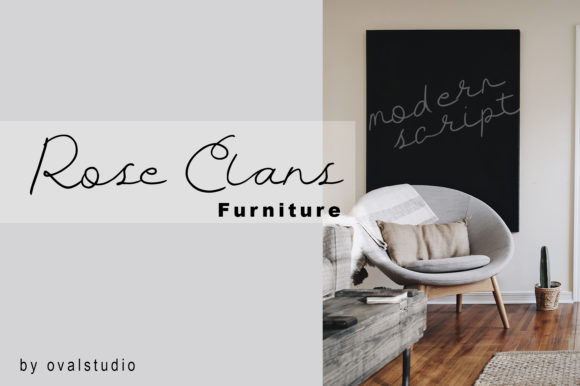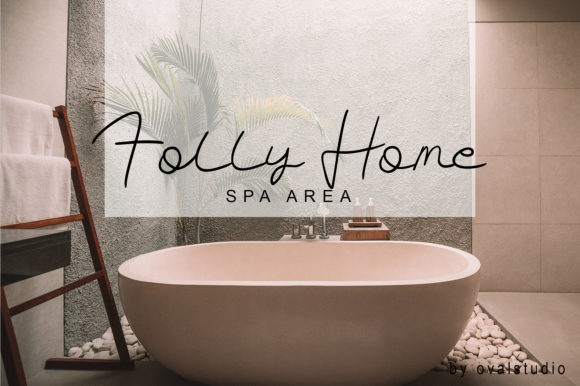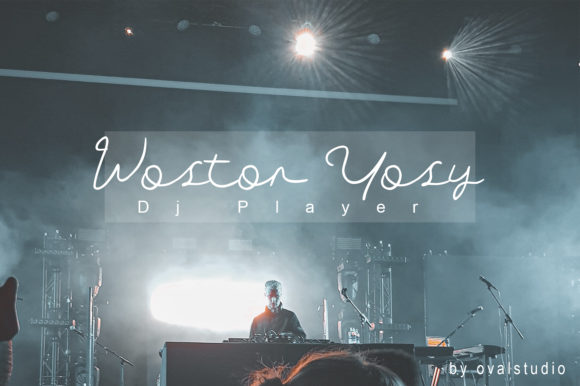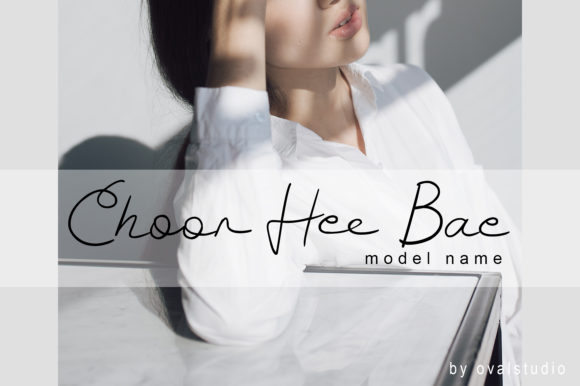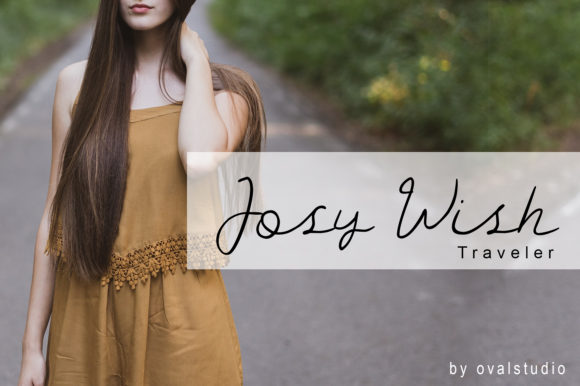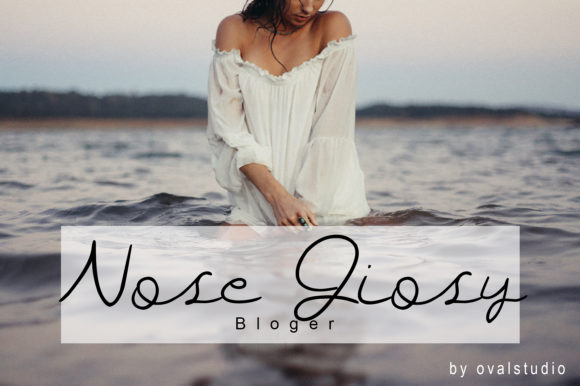
Introduction to Miasan Font
As a designer, there’s nothing quite like the thrill of a creative project coming together. You’re sifting through a sea of design resources, searching for that perfect element to tie everything together. And then, you stumble upon it – the one that makes your heart skip a beat. For me, that moment came when I discovered the Miasan Font.
This high-quality, minimal handwritten font is a game-changer. Its incredibly versatile style makes it perfect for a wide range of creative projects, from elegant invitations to playful social media graphics. With a transparent background, the Miasan Font is a breeze to work with, and its free download makes it an accessible design resource for designers of all levels.
Whether you’re a seasoned pro or just starting out, the Miasan Font is a valuable addition to any designer’s toolkit. Its unique charm and effortless style make it a standout choice for designers looking to add a personal touch to their work.
Key Features of Miasan Font
- High-quality typography for creative projects, ideal for designers and artists.
- Unique characteristics: modern, clean design with a touch of elegance, making it perfect for a variety of creative projects.
Honest Review: Miasan Font
I recently came across the Miasan Font, and I was excited to dive in and see what it had to offer for my next creative project. I was impressed by the high quality and unique design of this font.
One of the standout features of the Miasan Font is its transparent background, which makes it a versatile design resource for any project. This is especially useful for designers who want to create a clean and modern aesthetic.
Here are some of the things that work well with the Miasan Font:
- Unique and creative design
- High quality and crisp typography
- Transparent background for added flexibility
- Limited character set, which may not be ideal for longer text
- No bold or italic versions, which can be a drawback for some designers
Overall, I think the Miasan Font is a great addition to any designer’s toolkit. It’s a free download, which is a definite plus, and it’s perfect for small-scale projects or those who want to add a touch of creativity to their designs.
Tips for Getting the Most Out of Miasan Font
To get the most out of the Miasan Font, experiment with different font sizes, colors, and combinations. This will help you unlock its full potential as a design resource.
The Miasan Font is commonly used in various design projects, including logos, brochures, and social media graphics. Its versatility and high-quality design make it a popular choice among designers.
Alternatives to Miasan Font
Open Sans is a high-quality, open-source sans-serif font that is ideal for creative projects requiring a clean and modern look. It features a transparent background and is highly customizable, making it a popular choice among designers. Open Sans is available for free download and is an excellent alternative to Miasan Font for web and print designs.
Comparison to Miasan Font: Open Sans has a more modern and sleek appearance, while Miasan Font has a more elegant and sophisticated feel. Open Sans is more versatile and suitable for a wide range of creative projects, whereas Miasan Font is more suited for high-end designs.
Lato is a high-quality, sans-serif font that is perfect for creative projects requiring a clean and elegant look. It features a transparent background and is highly customizable, making it an excellent choice for designers. Lato is available for free download and is a great alternative to Miasan Font for web and print designs.
Comparison to Miasan Font: Lato has a more modern and sophisticated appearance, while Miasan Font has a more traditional and elegant feel. Lato is more suitable for creative projects requiring a clean and minimalistic look, whereas Miasan Font is more suited for high-end designs with a touch of luxury.